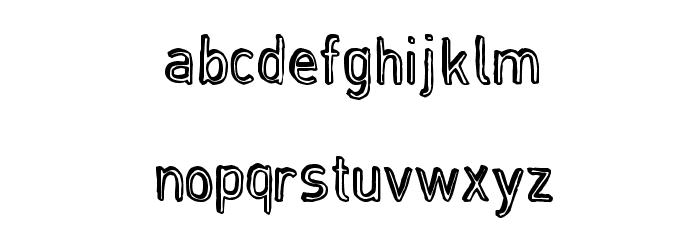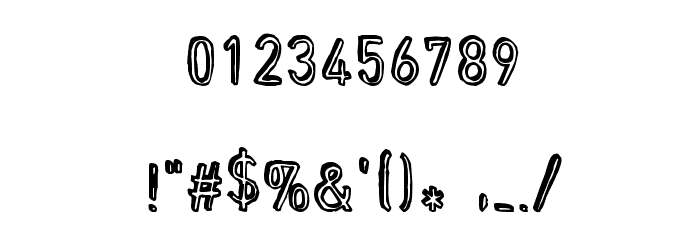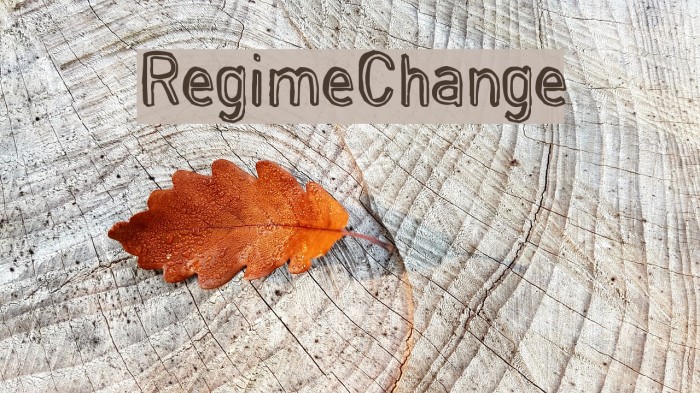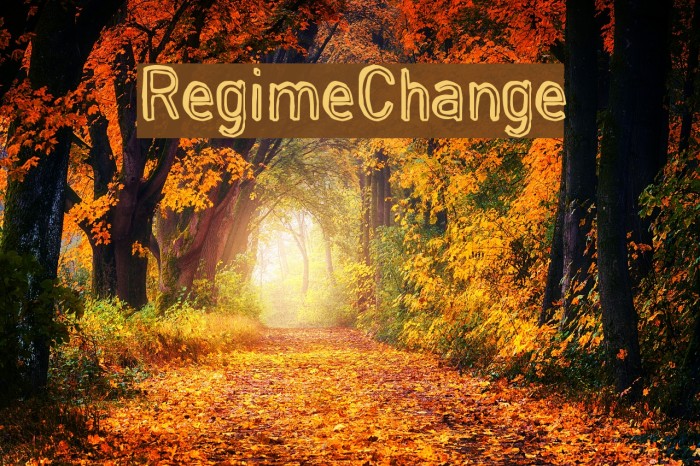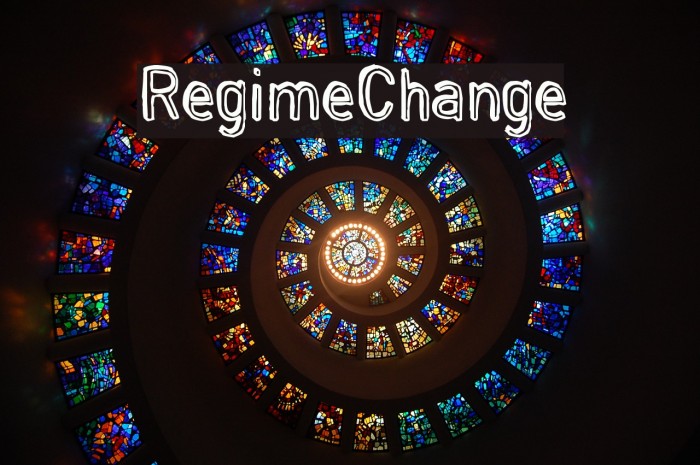
RegimeChange Font
This font features a playful, hand-drawn style with a slightly irregular outline that gives it a casual and approachable feel. The characters are bold and have a consistent stroke width, which adds to their readability. The uppercase and lowercase letters maintain a uniform height, while the numbers and special characters are designed to match the overall aesthetic. The font's unique outline effect adds a layer of depth, making it suitable for projects that require a touch of creativity and informality.
A playful, hand-drawn font with a bold, outlined style.
- Proposed Projects: Ideal for children's books, casual branding, posters, and creative invitations.
- Overall Style: Playful, Casual, Creative
- Use Case: Headlines, Posters, Branding